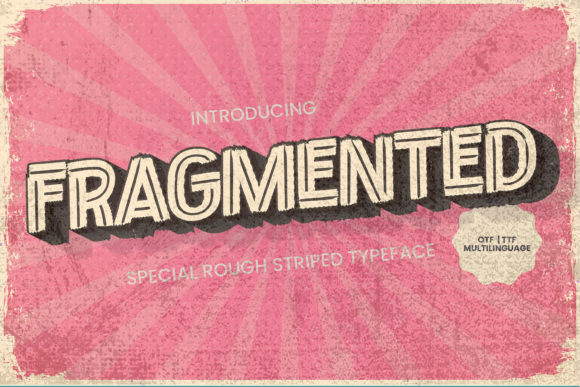
Feast your eyes on Fragmented Font, a typographic masterpiece that will add a captivating touch to your creative endeavors.
Unleash your inner artist and let your imagination run wild with this extraordinary display font. Its distinctive style, inspired by the beauty of fractured forms, will elevate your designs to breathtaking new heights.
Dive into a world of artistic elegance, where each letter dances across the page with a playful yet sophisticated charm. Fragmented Font is a symphony of flowing lines and striking angles, perfectly capturing the essence of contemporary creativity.
Transport yourself to a realm where boundaries dissolve, and your designs take flight. Whether you're crafting a compelling business proposal, designing an enchanting children's game, or simply seeking a touch of visual magic, Fragmented Font is your perfect companion.
Embrace the power of individuality and make a statement with Fragmented Font. Its bold presence and unwavering charm will leave an indelible mark on your audience, ensuring that your creations stand out from the crowd.